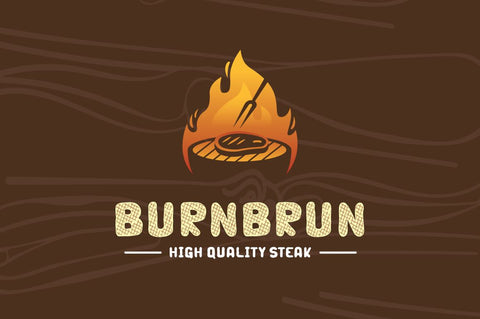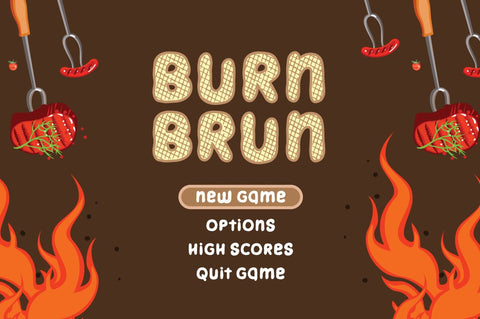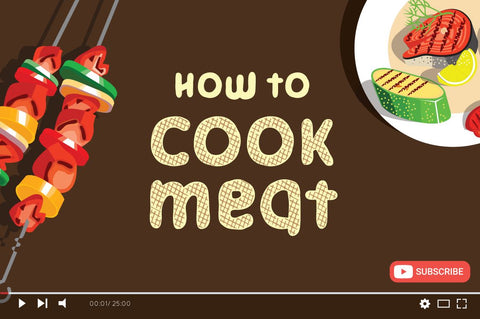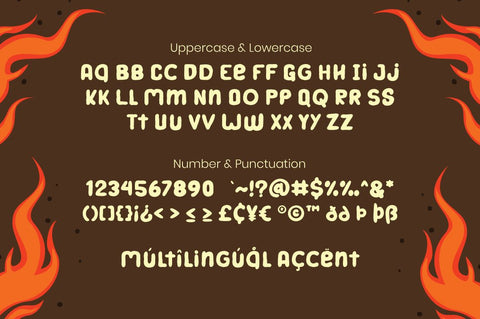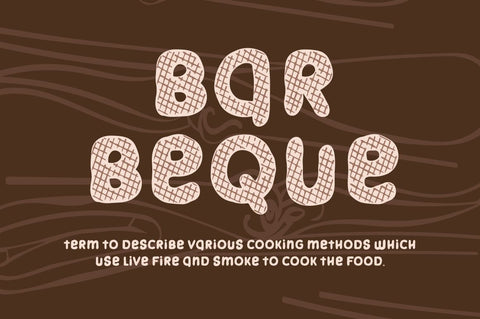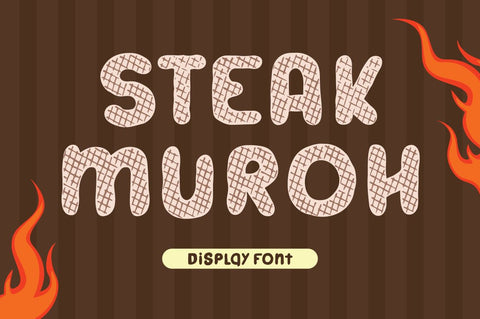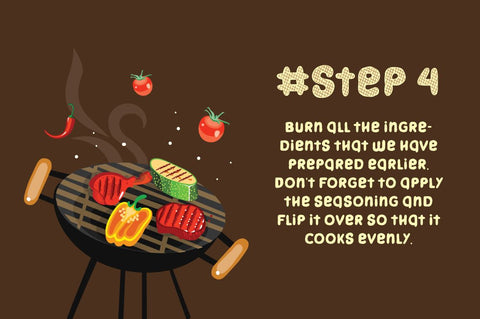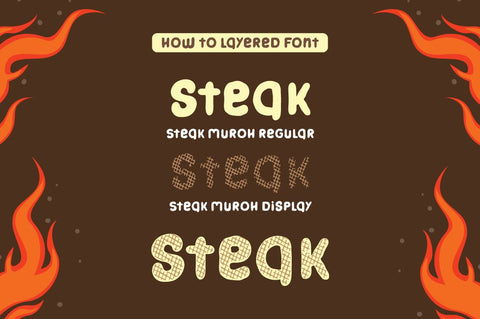
Steak Muroh - Layered Font
Steak Muroh is a layered display font with grill effect. This font perfect for steak & grilled food promotion .
Combine it with steak muroh regular & display style to make grill effects better!
Steak Muroh perfect for steak restaurant & cafe promotion, branding, logo, invitation, stationery, social media post, product packaging, merchandise,
blog design, game titles, cute style design, Book/Cover Title and more.